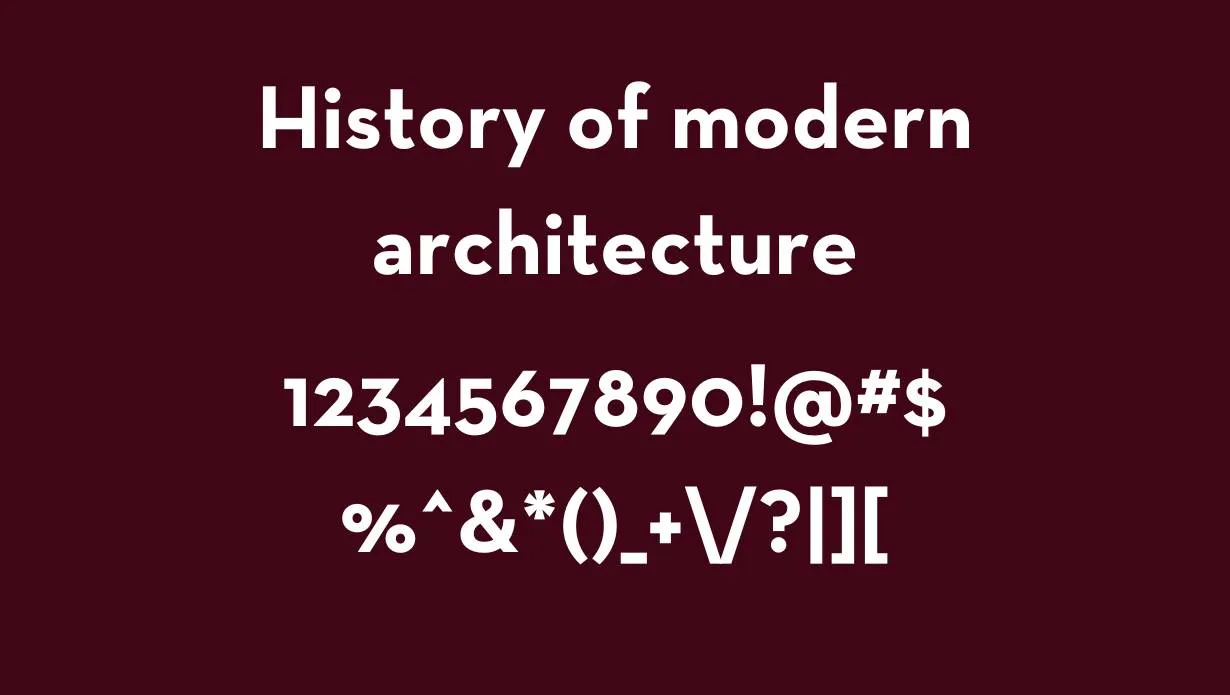
Neutra Text Font is a testament to the beauty of simplicity and minimalism in typography. Its clean and straightforward design makes it a perfect choice for contemporary projects, from branding to editorial layouts. The font’s versatility shines in its ability to convey a sleek and modern aesthetic.
| Name | Neutra Text Font |
| Designer | Christian Schwartz |